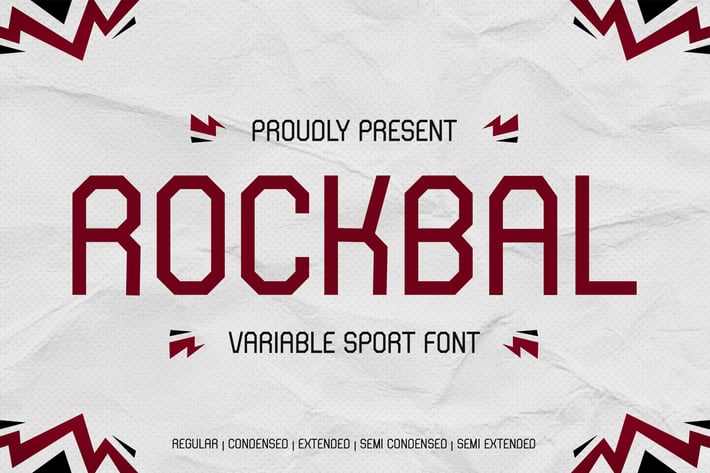
Rockbal - Variable Sport Font
Introducing "Rockbal" - a variable sport font designed to convey energy and dynamism, perfect for athletic branding, posters, and sports-related designs.
With its variable weights and dynamic letterforms, "Rockbal" offers versatility and impact, making it ideal for sports teams, fitness events, and active lifestyle brands.
Embrace the power of "Rockbal" as it effortlessly enhances your designs with its bold typography and athletic spirit.
Step into the world of variable sport fonts with "Rockbal" and let your creativity take center stage with its dynamic and versatile design.
– Lowercase
– Ligature
– Alternate
– Multilingual Support